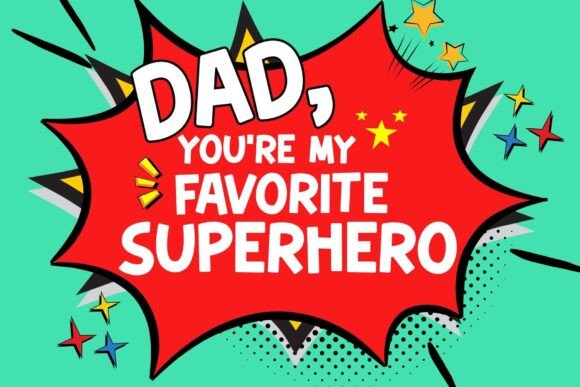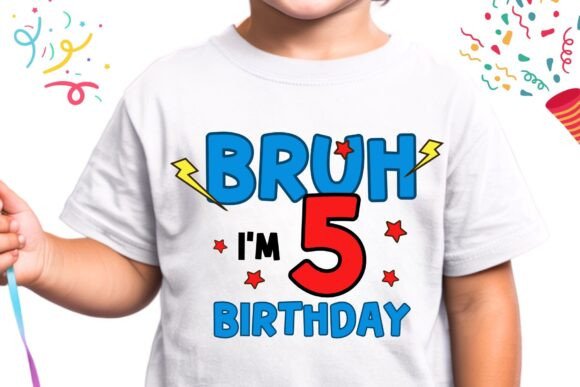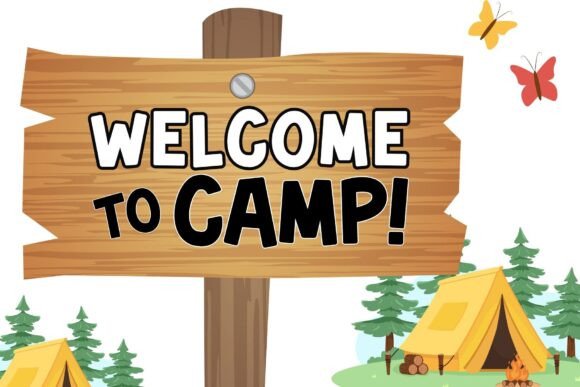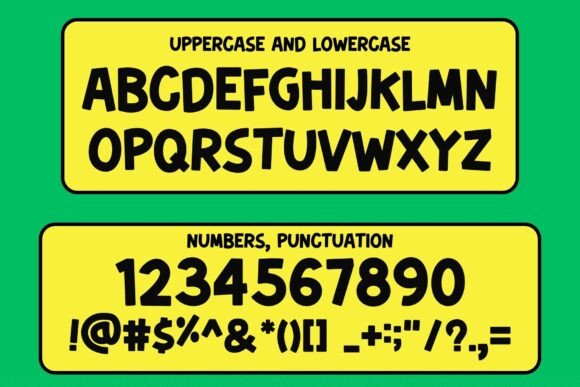
The Joy of Comic Book Magic: Introducing the Bubbly Comic Font
Who among us hasn’t been captivated by the vibrant colors and action-packed illustrations of comic books as kids? For many of us, it’s a nostalgic memory that sparks our creativity and fuels our imagination. Whether it’s creating our own superheroes or simply admiring the artwork, comic books have a way of transporting us to a world of limitless possibilities.
That’s exactly why the Bubbly Comic Font was designed – to capture the playful energy and whimsy of comic books and bring it to life in a bold, display font. With its thick strokes, bubbly curves, and cheerful vibe, this font is perfect for designers looking to add a touch of fun and personality to their projects. From children’s designs to party invitations, the Bubbly Comic Font is a valuable addition to any designer’s toolkit, guaranteed to bring a smile to kids (and adults!) of all ages.
- Font Family: Bubbly Comic
- Font Style: Casual, Comic Sans-like
- Unique Characteristics: Hand-drawn, bubbly, and playful, ideal for informal and creative content
Bubbly Comic Font Review
At first glance, the Bubbly Comic Font seems like a great choice for any project that needs a playful, lighthearted feel. ✨ The font’s rounded edges and bubbly shapes make it perfect for children’s books, comic strips, or even advertisements that need a fun touch.
Here are some of the things that work well for this font:
- ✨ Unique and quirky design that sets it apart from more traditional fonts
- ✨ Easy to read, even at smaller font sizes
- ✨ Can be used for both digital and print projects
- ⚠️ Limited font styles and variations (e.g. no bold, italic, or condensed versions)
- ⚠️ May not be suitable for formal or professional projects
- ⚠️ Can be difficult to pair with other fonts due to its unique design
Overall, I think the Bubbly Comic Font is a great choice for projects that need a playful, energetic feel. While it may not be suitable for all types of projects, it’s definitely worth considering for anything that needs a bit of whimsy and fun.
The Bubbly Comic Font is ideal for creating playful and whimsical designs. Use it for:
- Children’s book covers and illustrations
- Comic strips and graphic novels
- Quirky and humorous advertisements
For the best results, use the Bubbly Comic Font in conjunction with bright colors and playful graphics.
Alternatives to Bubbly Comic Font
Comic Sans MS is a popular alternative to Bubbly Comic Font, known for its playful and informal feel. It is best used in casual contexts such as blogs, social media, and advertising. While it is not as bubbly as Bubbly Comic Font, Comic Sans MS has a similar rounded shape and is often used in similar situations.
Lato is a sans-serif font that is often used as a more modern alternative to Bubbly Comic Font. It has a clean and friendly feel, making it suitable for use in branding, headings, and body text. Lato is more versatile than Bubbly Comic Font and can be used in a wider range of contexts.
Great Vibes is a script font that is similar to Bubbly Comic Font in its playful and energetic feel. It is best used in situations where a more casual and creative tone is desired, such as in advertising, social media, and event invitations. Great Vibes has a more elegant and refined feel than Bubbly Comic Font, making it a good choice for designers who want to add a touch of sophistication to their work.
Courier New
Courier New is a monospaced font that is often used as a more formal alternative to Bubbly Comic Font. It has a clean and professional feel, making it suitable for use in technical writing, coding, and other situations where a clear and readable font is desired. Courier New is more formal and serious than Bubbly Comic Font, making it a good choice for designers who want to convey a sense of authority and expertise.
Can I customize the Bubbly Comic Font to fit my specific design needs?
Yes, Bubbly Comic Font is designed to be highly customizable. You can adjust the font’s width, height, and other parameters using font editing software or code. Additionally, you can use font ligatures, stylistic sets, and other advanced features to create unique and personalized designs.